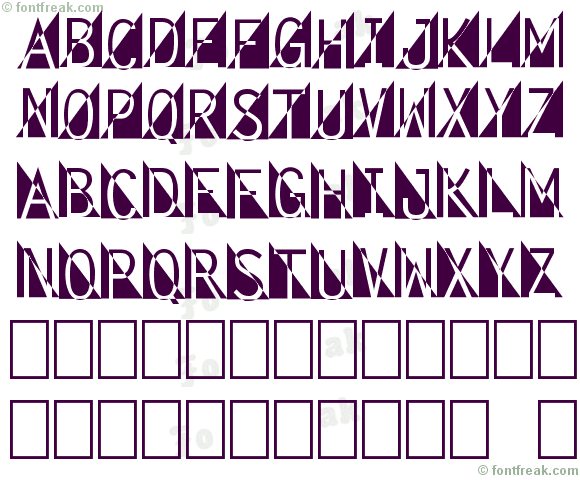
Fantomet 1
Fantomet by Listemageren is a unique display font that stands out with its bold, geometric design. This freeware typeface showcases a captivating visual style characterized by sharp angles and a distinct lack of uniformity, which lends it an edgy, modern feel. The stroke weight is consistent, yet the contrast between the solid letterforms and the negative spaces creates a dynamic visual rhythm. The spacing is carefully balanced, allowing for both legibility and an artistic flair, making it an excellent choice for various creative applications.
Fantomet's striking appearance makes it particularly well-suited for eye-catching designs such as movie posters, where it can add a dramatic touch to titles. Its unique character also makes it ideal for branding projects, especially for businesses in the creative sector looking to convey innovation and originality. Additionally, this font can enhance the aesthetic of restaurant menus, lending a contemporary edge that attracts attention. Graphic designers and content creators searching for something distinctive will find the Fantomet font free download an invaluable resource for their projects.
The target audience for this font includes graphic designers, small business owners, and content creators who are looking to make a memorable impact. Whether used in promotional materials or digital content, Fantomet allows for creative expression that resonates with viewers.
What makes Fantomet truly stand out is its ability to merge artistic flair with practicality. The font’s unique forms and strong presence ensure that any project utilizing it will be visually striking. With its bold and unconventional style, Fantomet is a perfect choice for those seeking to break away from the ordinary and embrace a more adventurous typographic approach.